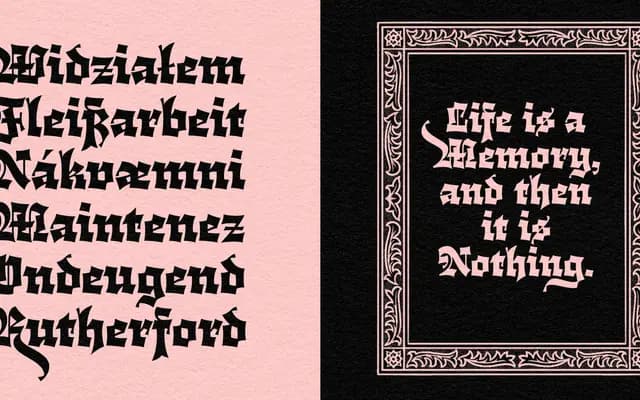
Cloisterfuch
A single-style blackletter display face grounded in Textura Quadrata, with exaggerated flaring, waisted strokes and Fraktur-influenced majuscules that give it a blocky, characterful presence.
Drawing primarily on Textura Quadrata with Fraktur influence in the uppercase, Cloisterfuch pushes the varying pen angles and waisted strokes of calligraphic scripts to an expressive extreme. The result is a chunky, striking display face with pendulous Schnorkels on the majuscules, wedge-shaped ink traps on the r, c and t, and a letter spacing that maintains a dark but balanced page colour. Named one of Typographica's Favourite Typefaces of 2019, it comes with Latin Plus language support, OpenType features including historical forms, oldstyle figures, swash caps and standard and discretionary ligatures.
Cloisterfuch is rooted in Textura Quadrata with Fraktur influence in the majuscules, placing it firmly in the blackletter category with a textura subcategory. The exaggerated wedge serifs, waisted strokes and blocky letterforms are characteristic of the textura tradition.